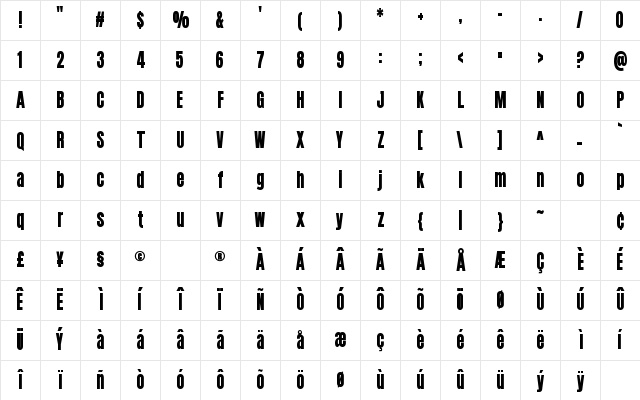
Complete Amazing Paradise Regular glyph index. Displaying only characters natively supported by Amazing Paradise Regular font.
Amazing Paradise is a composed and adaptable typeface that performs quietly and consistently across a wide range of design contexts.